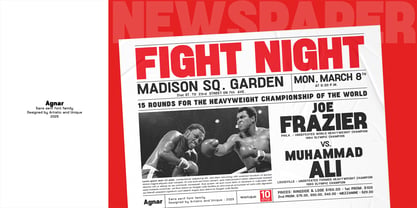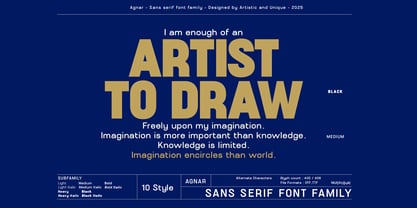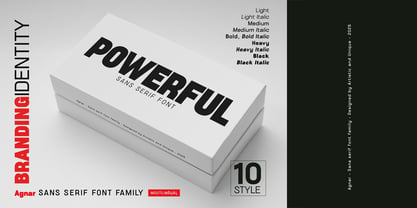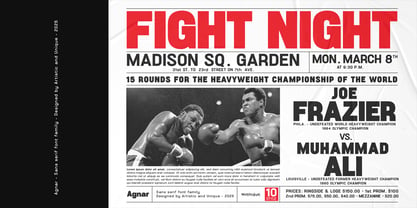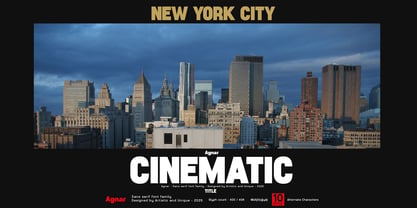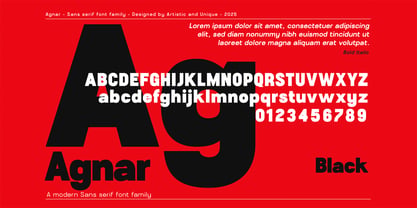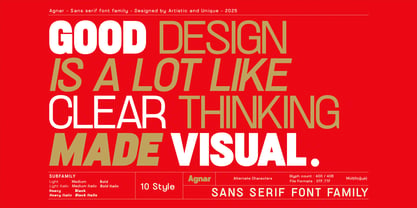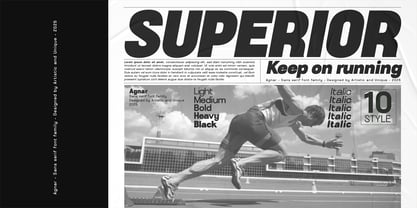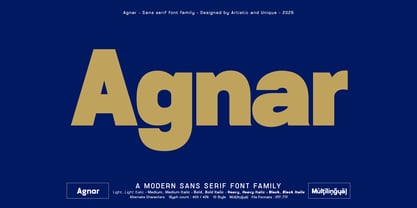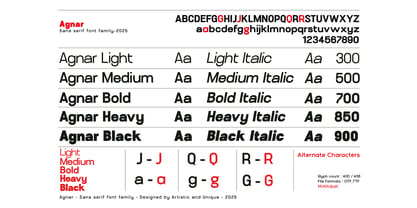
Agnar - Sans serif font family - Multilingual support- 10 style
Agnar is a modern and powerful font family.
If you're looking for high readability with strong emphasis, explore this font!
Drawing inspiration from the sans serif fonts used in newspapers in the 1960s and 1970s, Agnar aims to contribute to today's modern fonts with its new nuances, and is poised to become a timeless sans serif font.
In the contemporary design world, Agnar stands out as a sans serif font family that combines simplicity and modernism with elegance.
Its versatility allows for seamless integration into both digital and print projects, making it a suitable choice for designers aiming to enhance their branding.
This family features 10 different styles that provide flexibility in a variety of creative projects, with bold styles for areas requiring strong and readable emphasis and thin styles for areas requiring elegance.
Multilingual support further enhances its universal appeal; lighter tones offer a sophisticated look, while thicker tones attract attention in headlines.
Features:
Extensive Character Set - Includes uppercase, lowercase, punctuation, symbols, and numbers.
Extended Design Flexibility - Offers multiple tones and styles.
Multilingual Support - Perfect for global projects.
Whether you're designing books, magazines, or newspapers, or developing editorial headlines, websites, logos, and brands, the Agnar font family offers a harmonious blend of modern and classic aesthetics. Enhance your designs with this versatile font that respects tradition while meeting contemporary needs.